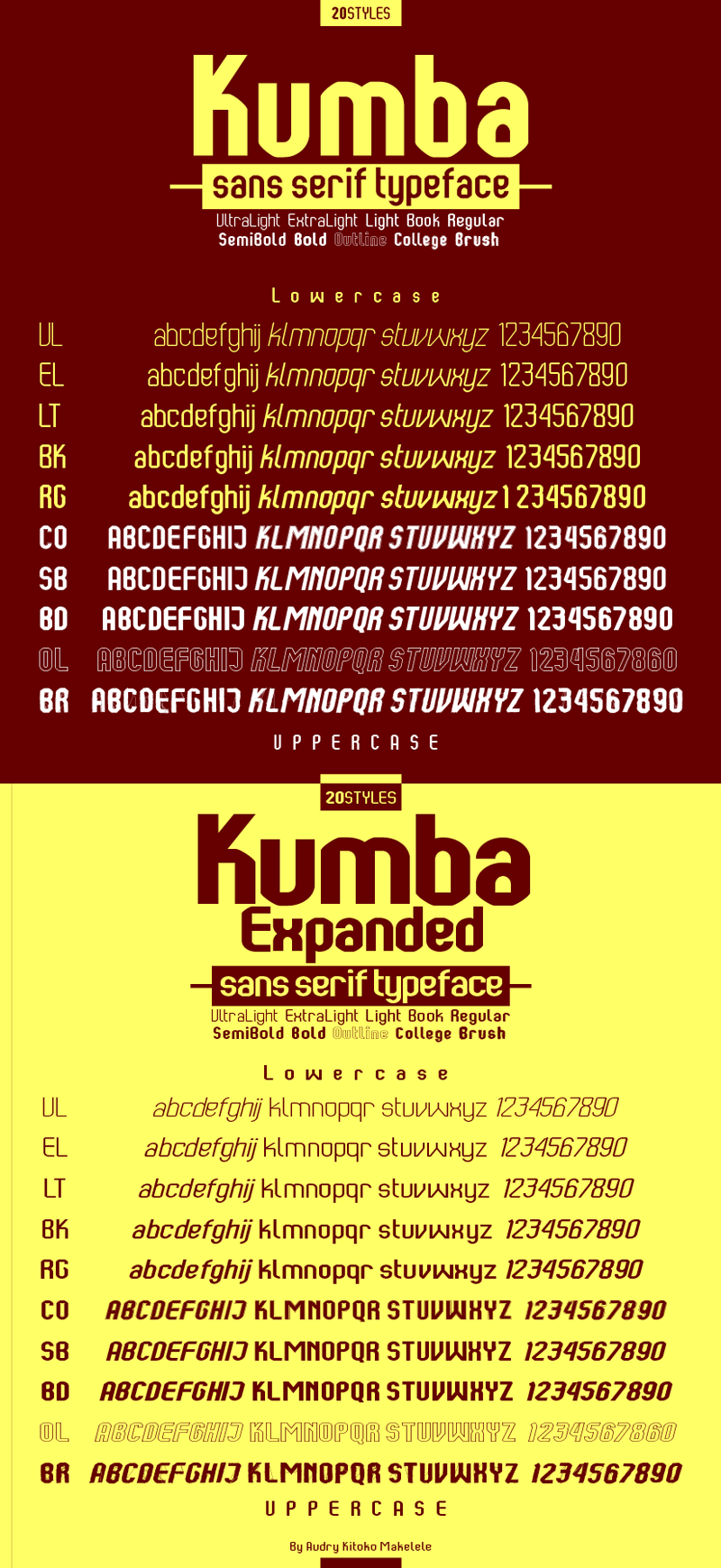
Kumba is inspired by classic typography and brings its own unique style to any design project. This fantastic sans serif font is best suited for headlines of all sizes, as well as for blocks of text that have both maximum and minimum variations. Whether it�s for web, print, moving images or anything else � Kumba will look spectacular. For commercial use, please purchase a license here : https://www.creativefabrica.com/product/kumba/ref/69549/ Kumba Expanded is a great sans serif font. Whether you�re looking for fonts for Instagram or calligraphy scripts for DIY projects, Kumba Expanded will turn any creative idea into a true piece of art! For commercial use, please purchase a license here : https://www.creativefabrica.com/product/kumba-expanded/ref/69549/ Compatibility : * Windows/Android * Apple/Mac * Linux * Web * Cricut * Silhouette * + Other cutting machines Kumba and Kumba Expanded are a trademark of Audry Kitoko Makelele. Copyright (c) 2020 by Audry Kitoko Makelelele. All rights reserved. |